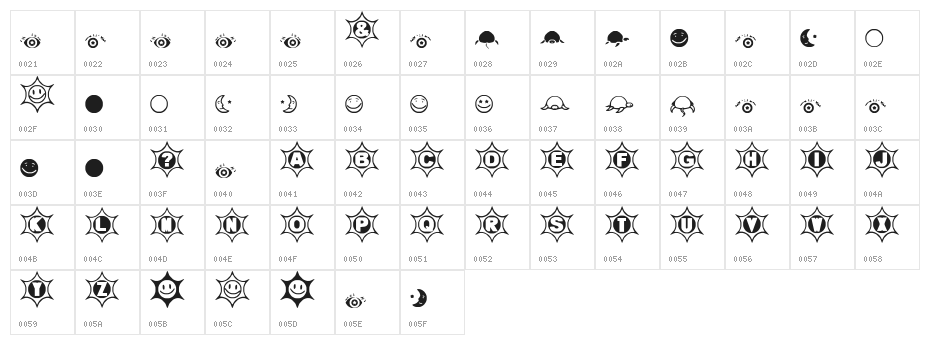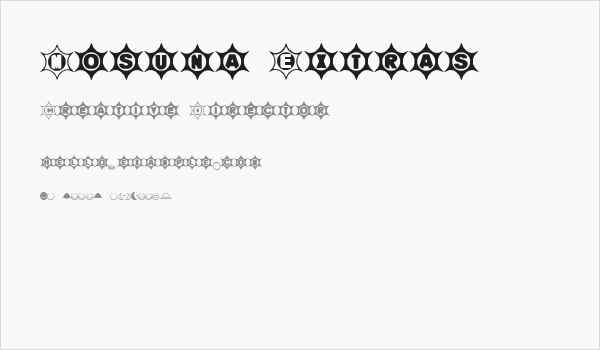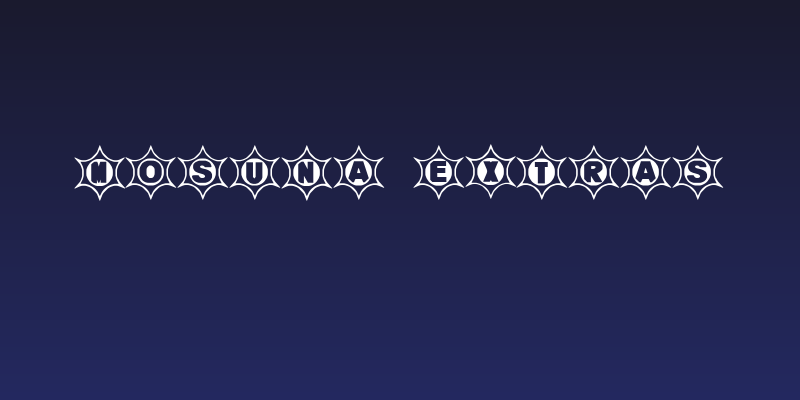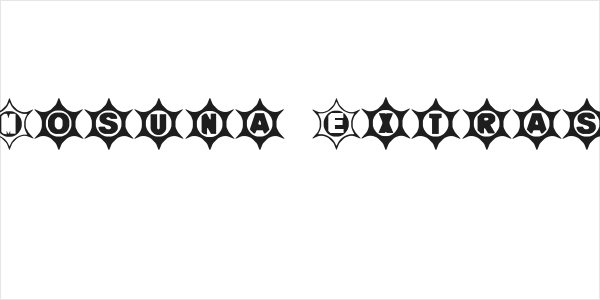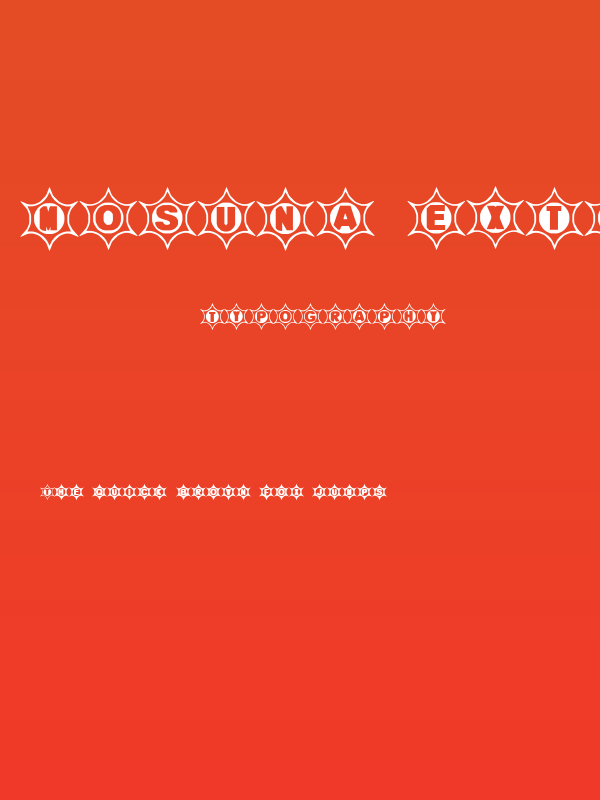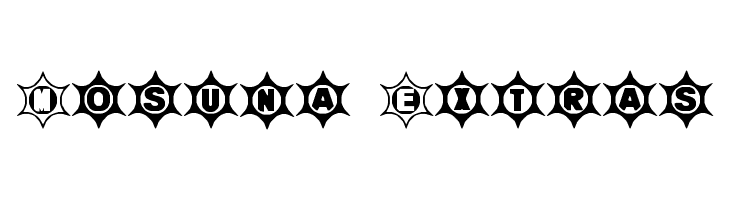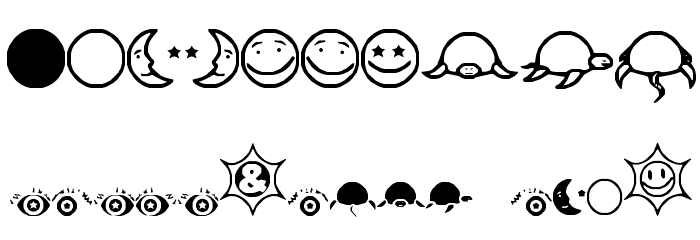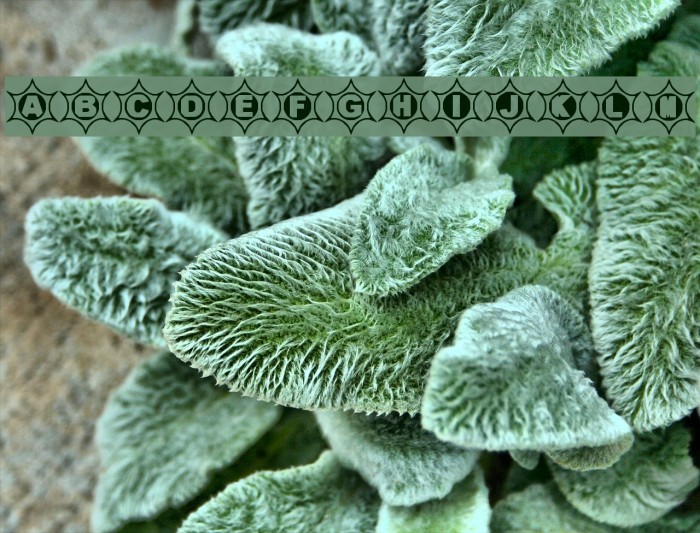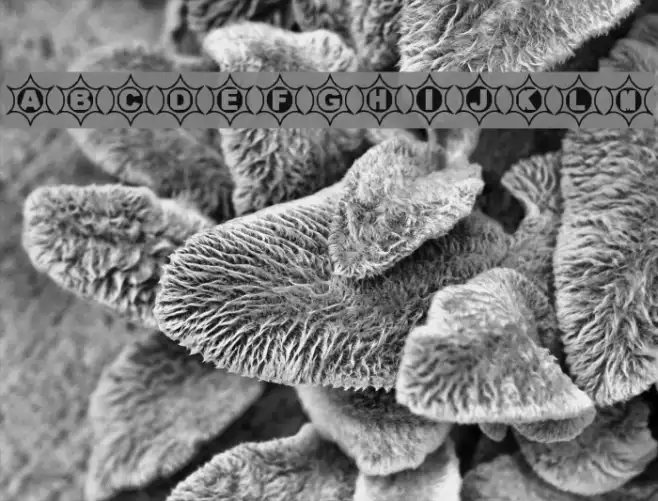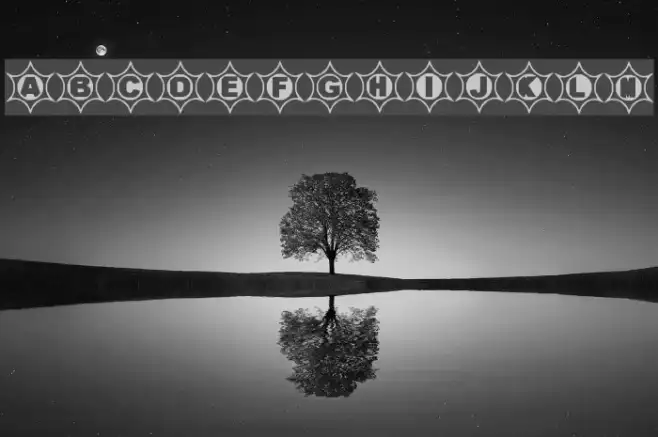
Mosuna Extras Font
Mosuna Extras Description
This font features a unique and playful design, with each character enclosed in a starburst-like shape, creating a bold and eye-catching appearance. The uppercase letters are consistent in style, maintaining a uniformity that is both decorative and structured. The font includes a variety of whimsical symbols, such as moons, stars, and smiley faces, adding to its playful and creative aesthetic. The overall design is reminiscent of a retro or vintage style, making it suitable for projects that require a fun and nostalgic touch.
| Overall Style | Vintage, Decorative |
| Proposed Projects | Ideal for children's books, party invitations, posters, and any project requiring a fun, retro vibe. |